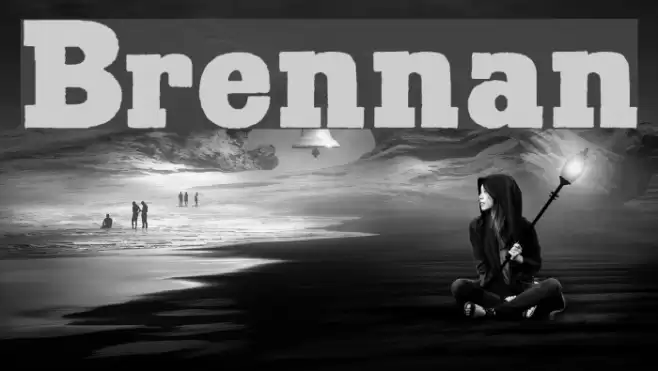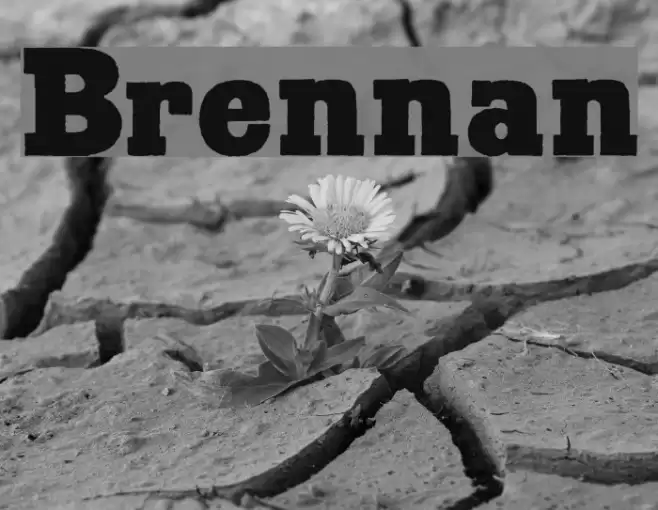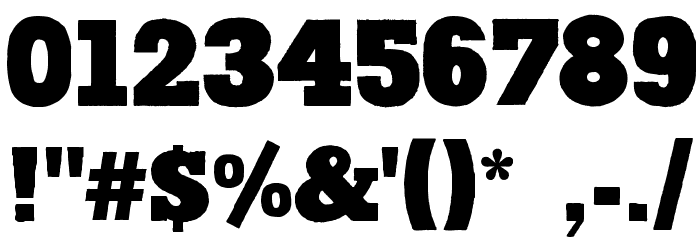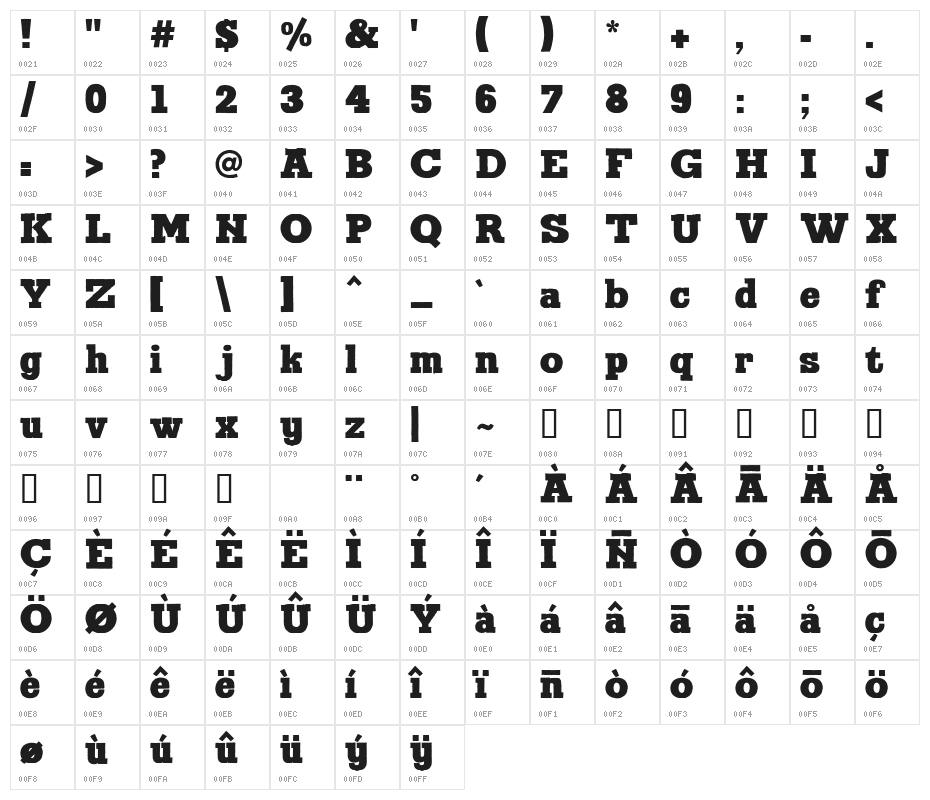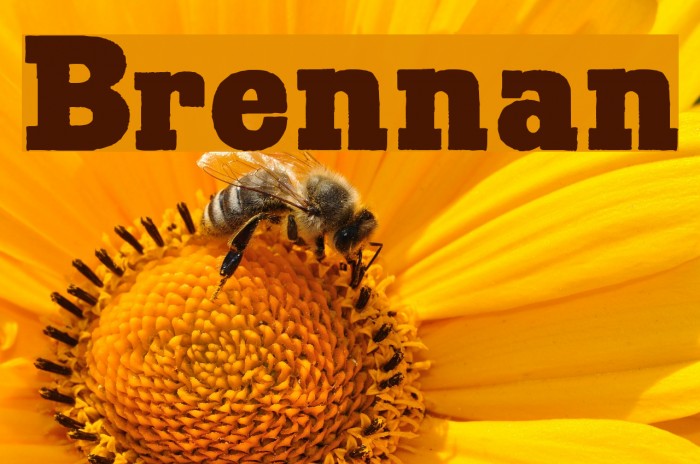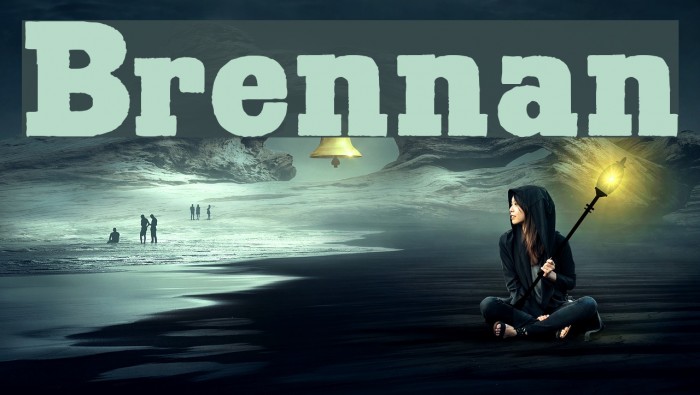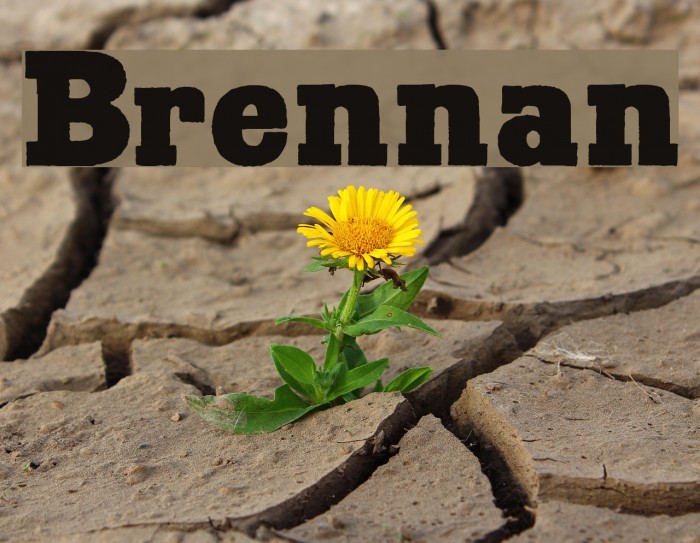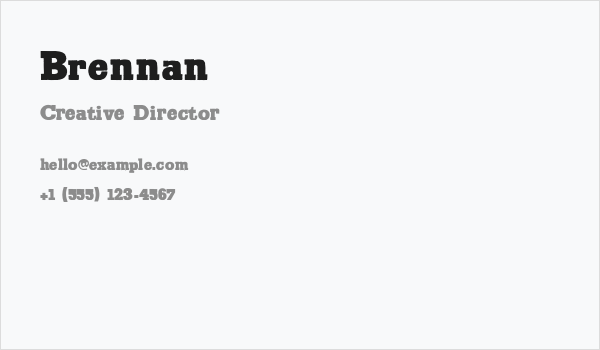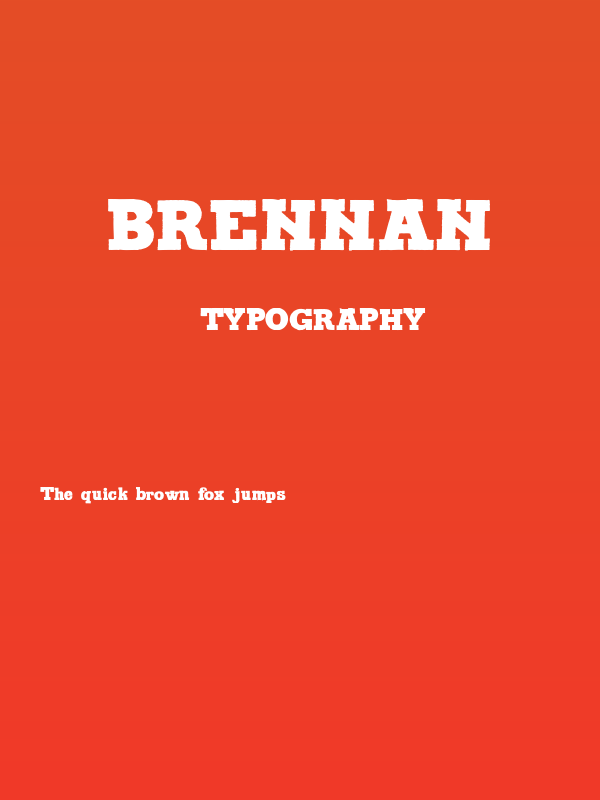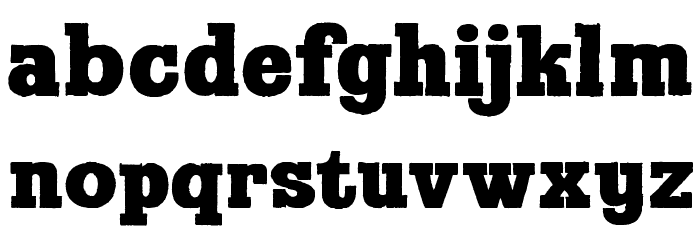
Brennan Font
Brennan Description
This font features a bold and robust slab serif style, characterized by thick, block-like serifs that give it a strong and commanding presence. The uppercase letters are uniform in height, while the lowercase letters maintain a consistent baseline, contributing to a balanced and cohesive appearance. The numerals are bold and easily readable, making them suitable for impactful displays. Special characters are designed with the same boldness, ensuring they stand out. The overall design is reminiscent of vintage typefaces, yet it retains a modern appeal due to its clean lines and solid structure.
A bold, slab serif font with a vintage yet modern appeal from Uncategorized fonts.
- Proposed Projects: Ideal for headlines, posters, branding, and any project requiring a strong visual impact.
- Overall Style: Vintage